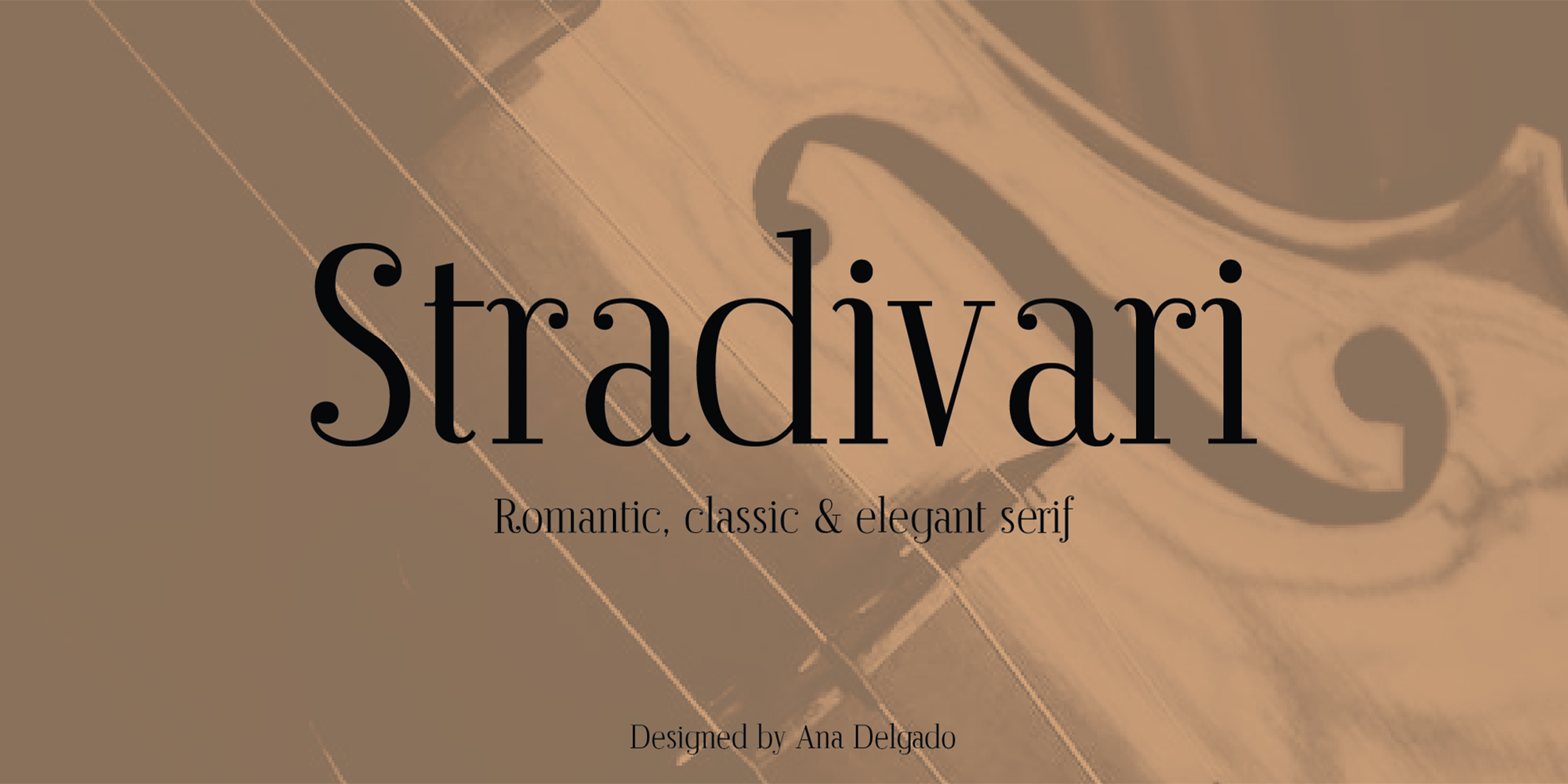
This elegant typeface is perfect for classical music programs, symphony orchestra branding, opera house materials, music conservatory publications, violin maker logos, classical concert posters, fine arts galleries, luxury instrument dealers, prestigious music schools, chamber music events, baroque festival announcements, classical recording labels, and sophisticated cultural institutions. The font's refined design makes it ideal for projects that celebrate musical artistry and classical elegance.
Stradivari Font is exciting because it embodies the precision and artistry of master craftsmanship through its graceful letterforms and harmonious proportions. The font's sophisticated curves and musical rhythm create an atmosphere of timeless elegance and artistic excellence, making it perfect for brands that want to convey refinement, tradition, and uncompromising quality. Its classical beauty ensures memorable recognition while maintaining exceptional legibility across various applications.
The Stradivari Font family includes multiple refined variations: Light Allegro, Regular Andante, Medium Moderato, Bold Forte, and Black Fortissimo weights, each available in standard and italic versions. Special musical editions feature decorative flourishes, ornamental capitals, and stylistic alternates that enhance the font's classical appeal, providing designers with sophisticated tools for creating truly harmonious typographic compositions.
Compose masterful designs with Stradivari Font Free Download – a typeface that resonates with classical beauty and artistic perfection. Whether you're creating music industry branding, cultural event materials, or luxury brand communications, this font delivers the refined elegance and timeless sophistication your projects need while ensuring exceptional performance and enduring aesthetic appeal across all classical and premium applications.